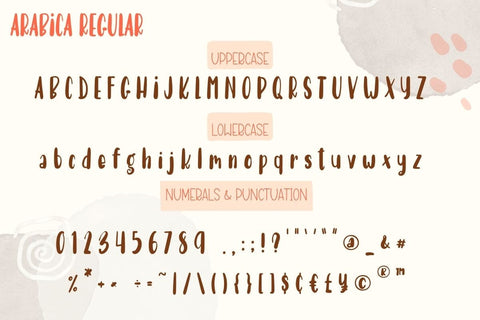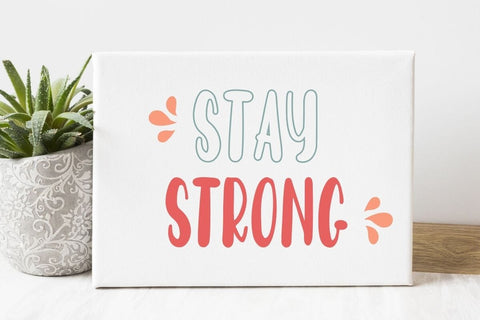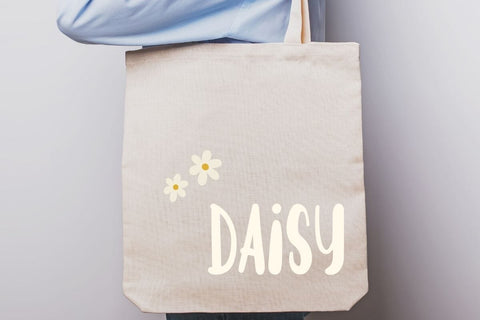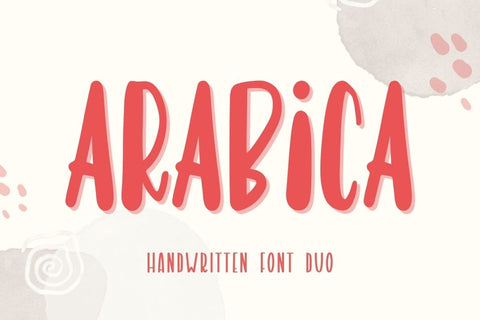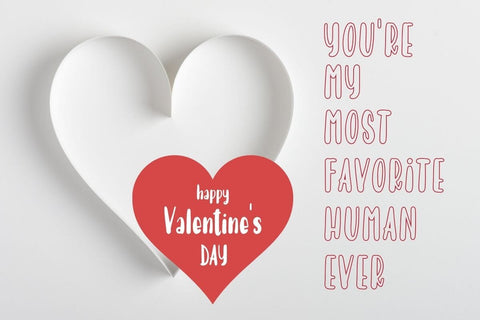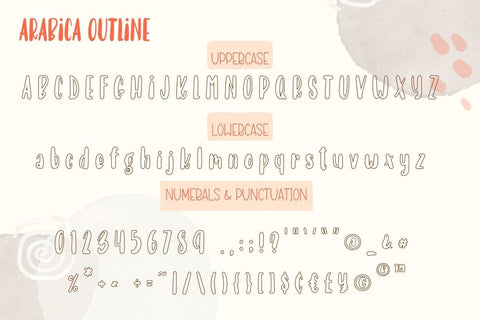
Arabica - Handwriting Font Duo
Arabica is a cute handwritten font that will help you enjoy and have fun with your designs. This Font has 2 styles: Regular and Outline. Perfect for creating new designs such as banners, content, mugs, cards, shirts, stationery, social media posts, and more!